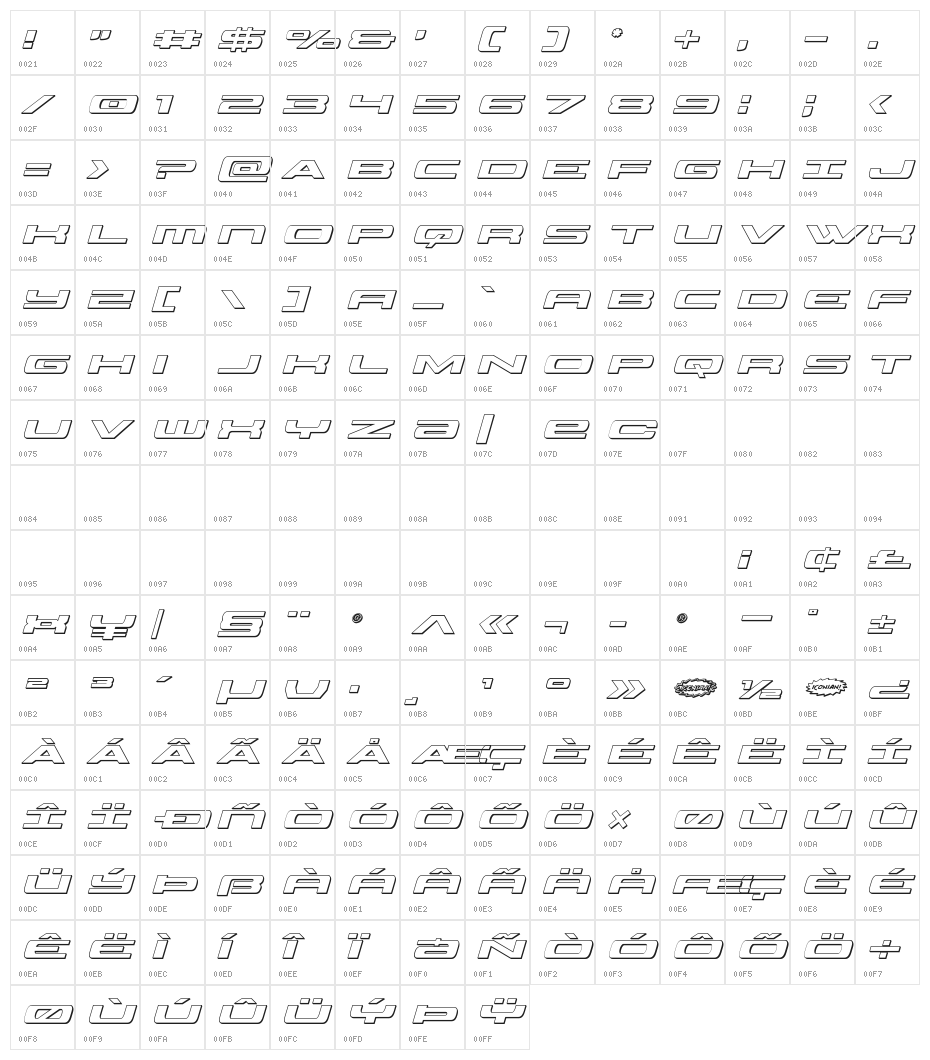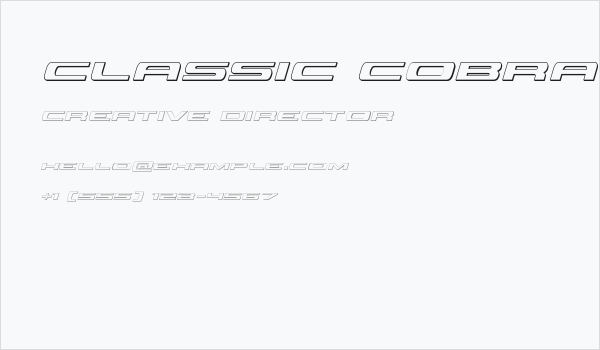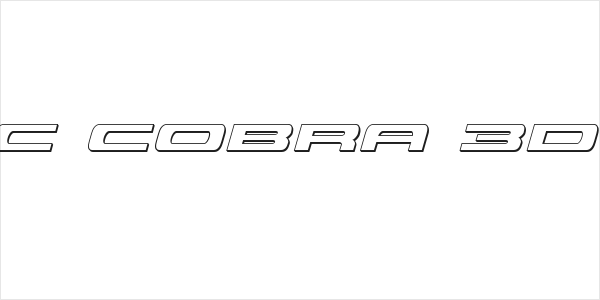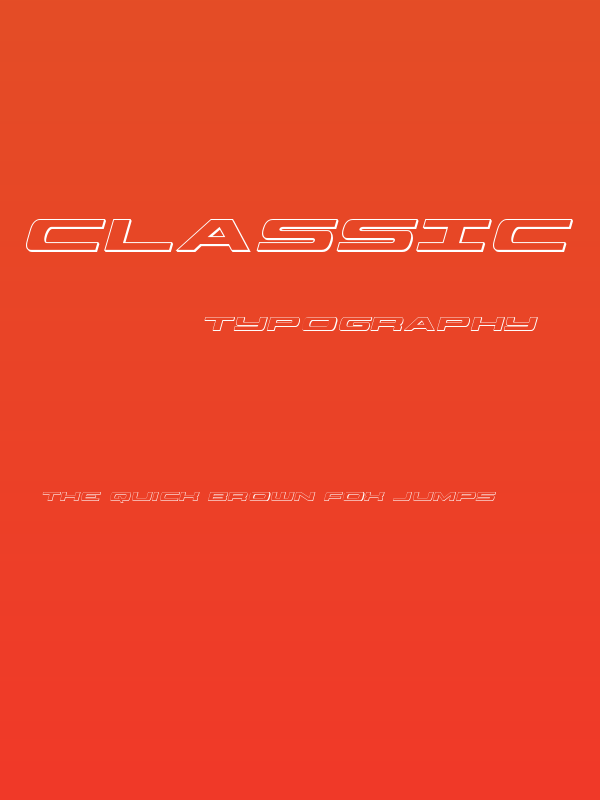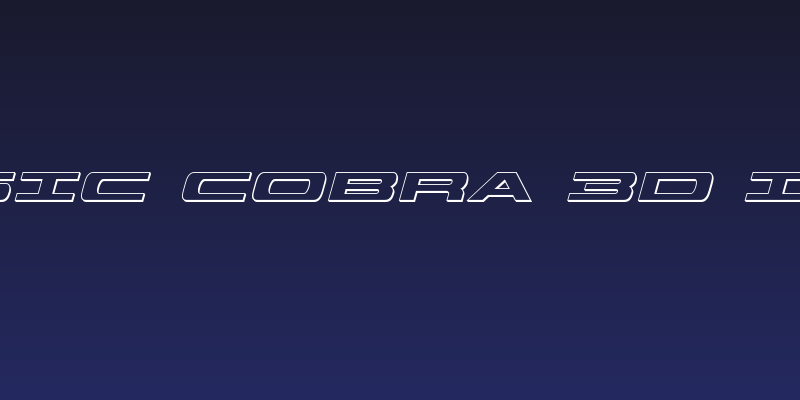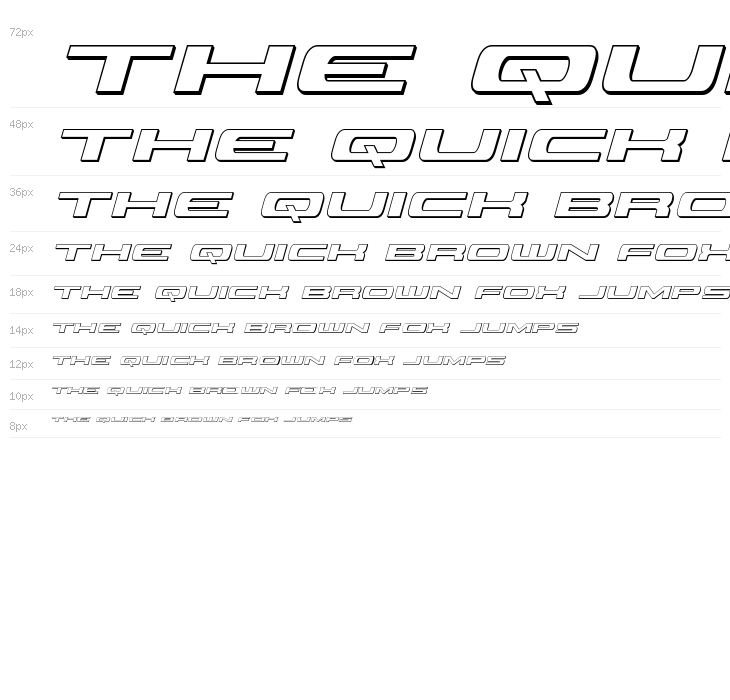
Classic Cobra 3D Italic Font
Classic Cobra 3D Italic Description
This font features a bold, three-dimensional design with a distinct italic slant, giving it a dynamic and futuristic appearance. The characters are outlined, creating a hollow effect that enhances its 3D look. Each letter is crafted with sharp angles and clean lines, contributing to a sleek and modern aesthetic. The uppercase and lowercase letters maintain a consistent style, while the numerals and special characters complement the overall design. This font is ideal for projects that require a bold and eye-catching typeface with a modern twist.
| Proposed Projects | Ideal for video game titles, sci-fi movie posters, tech branding, and modern advertising. |